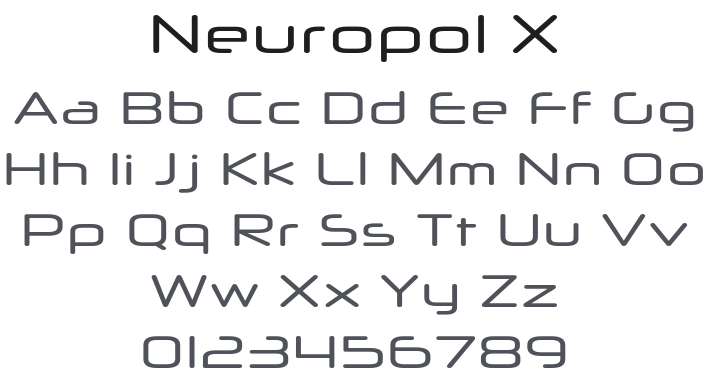
Neuropol X Font
About Neuropol X
Neuropol X refines the techno aesthetic into sleek, laser-cut precision. Its signature truncated curves and clean geometry evoke circuitry and spacecraft design, merging mechanical control with human rhythm. Open counters and smooth arcs end in sharp, deliberate cuts, giving text a sense of motion and intent. With five weights, three widths, and italics, it scales from tight, high-impact headlines to wide cinematic layouts. Supporting Latin, Greek, Cyrillic, and Vietnamese scripts, Neuropol X delivers global versatility with futuristic clarity and polish.